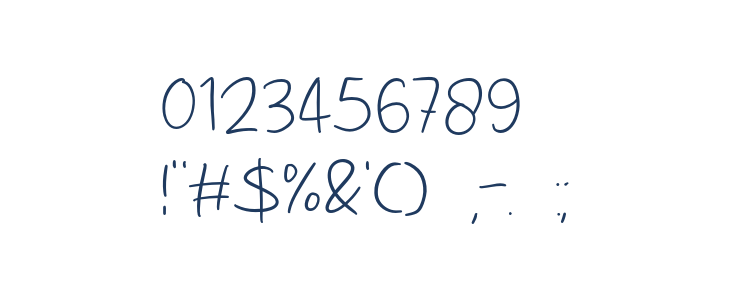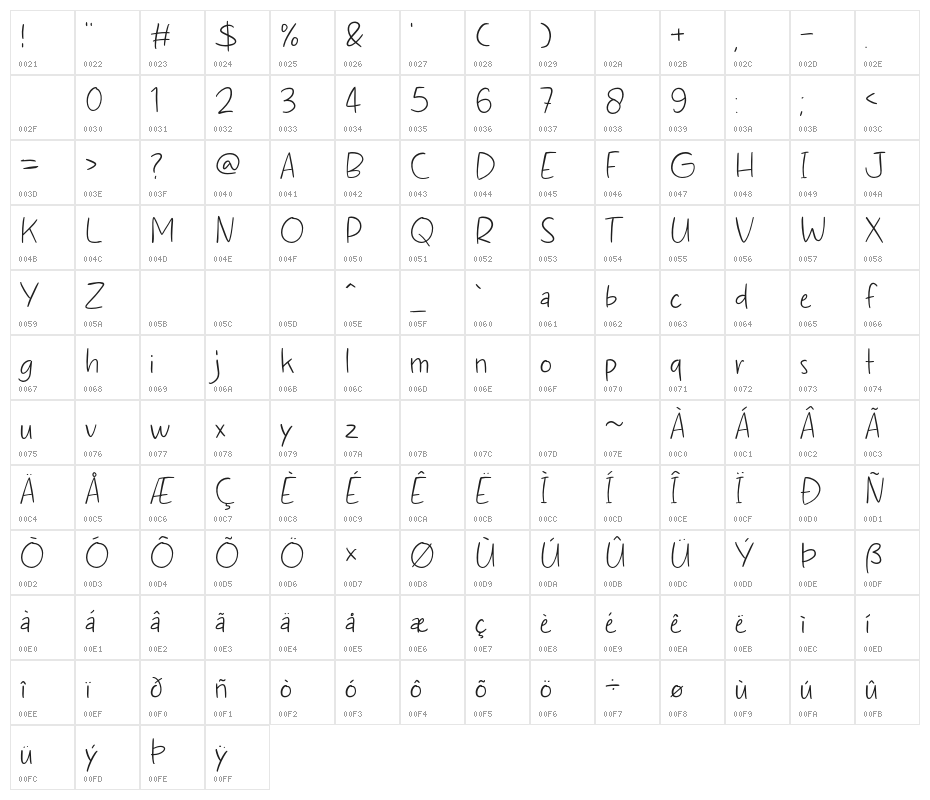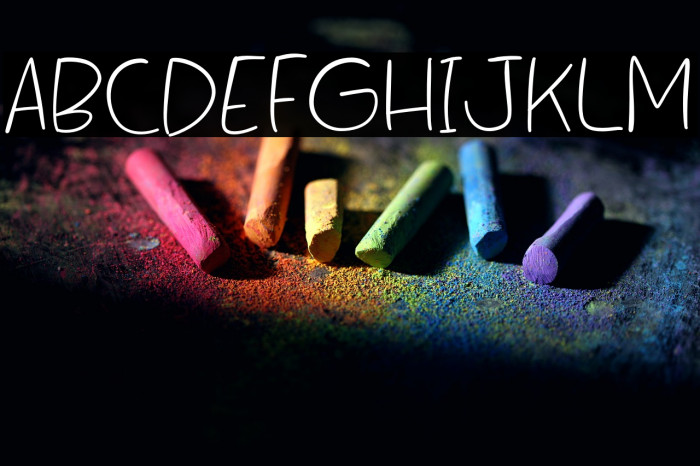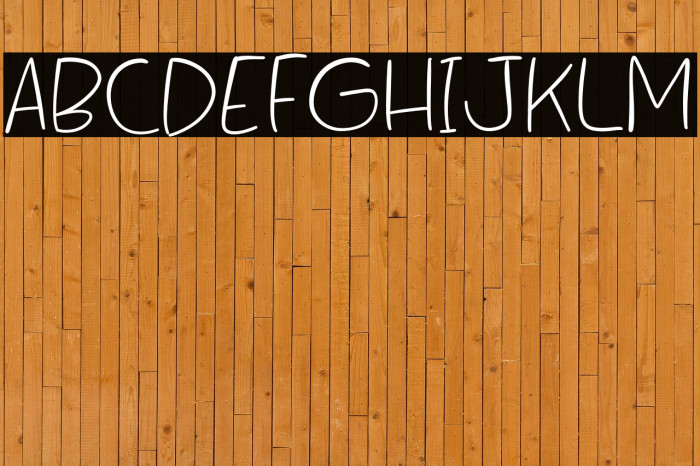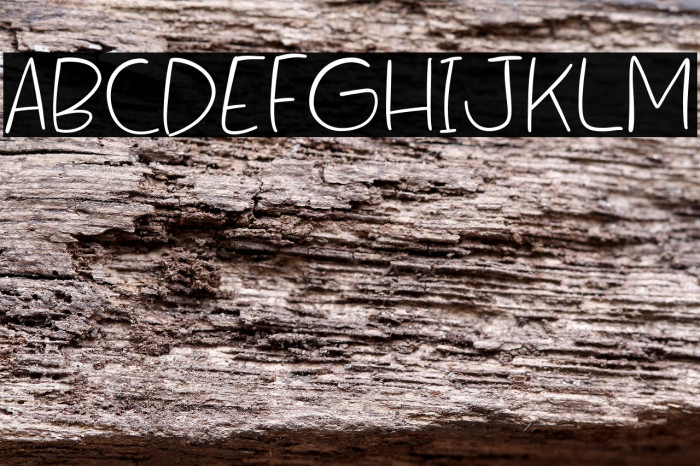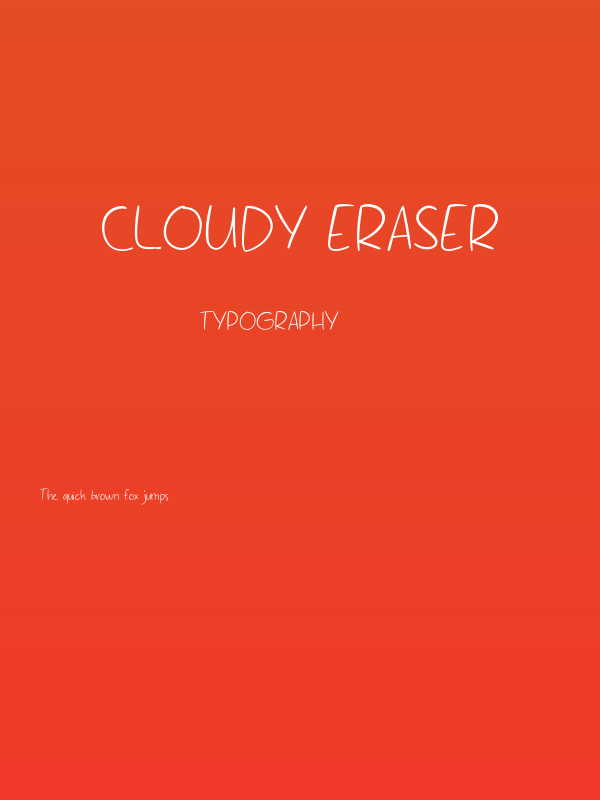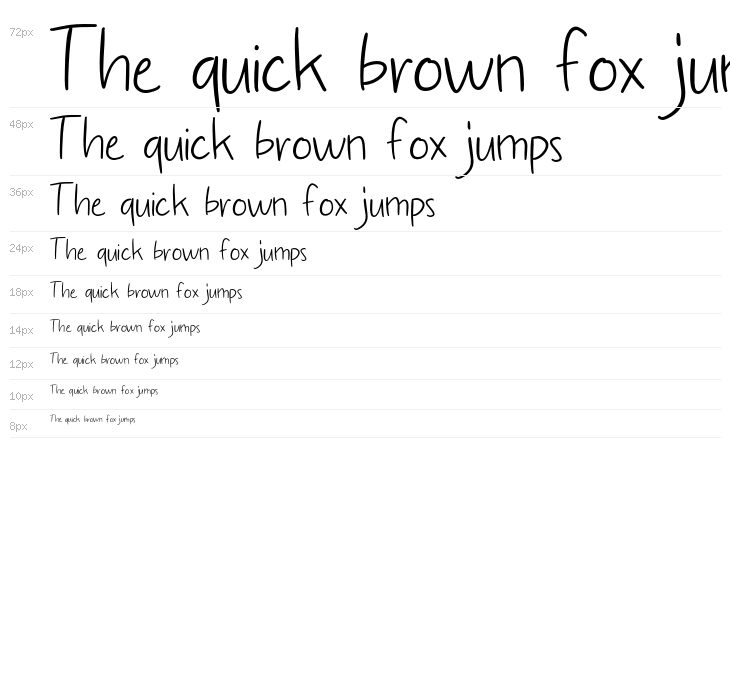
Cloudy Eraser Font
Cloudy Eraser Description
This font exhibits a playful and casual handwritten style, characterized by its smooth, flowing lines and slightly irregular shapes. The letters are crafted with a natural, organic feel, giving the impression of being written with a marker or pen. The uppercase and lowercase letters maintain a consistent style, with rounded edges and a slight slant, adding to the informal aesthetic. The numerals and special characters follow the same design principles, ensuring a cohesive look across all elements. This font's approachable and friendly appearance makes it suitable for projects that require a personal touch.
| Use Case | Headlines, Informal text, Personal projects |
| Proposed Projects | Ideal for greeting cards, children's books, personal blogs, and informal branding. |